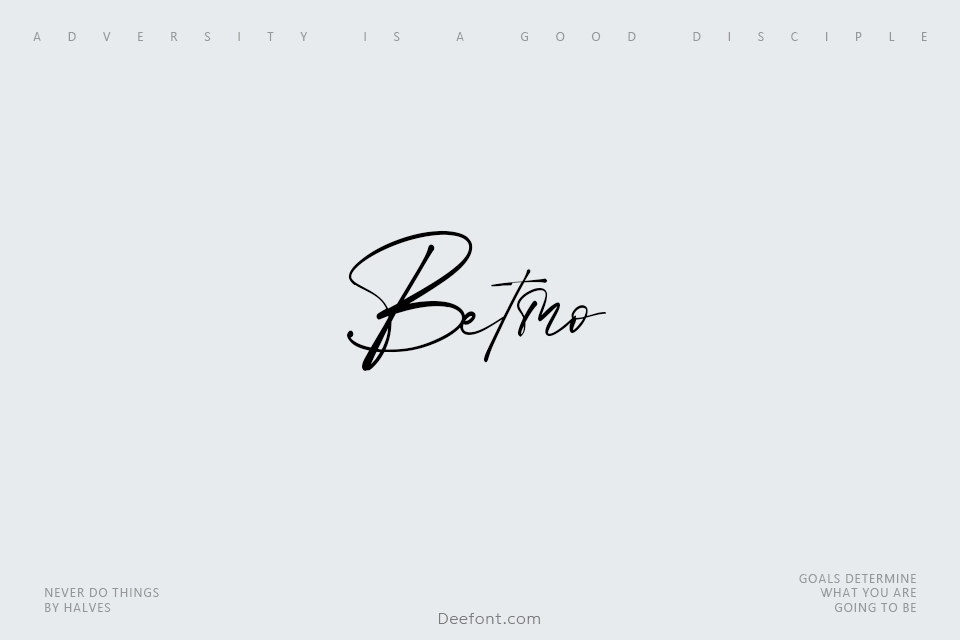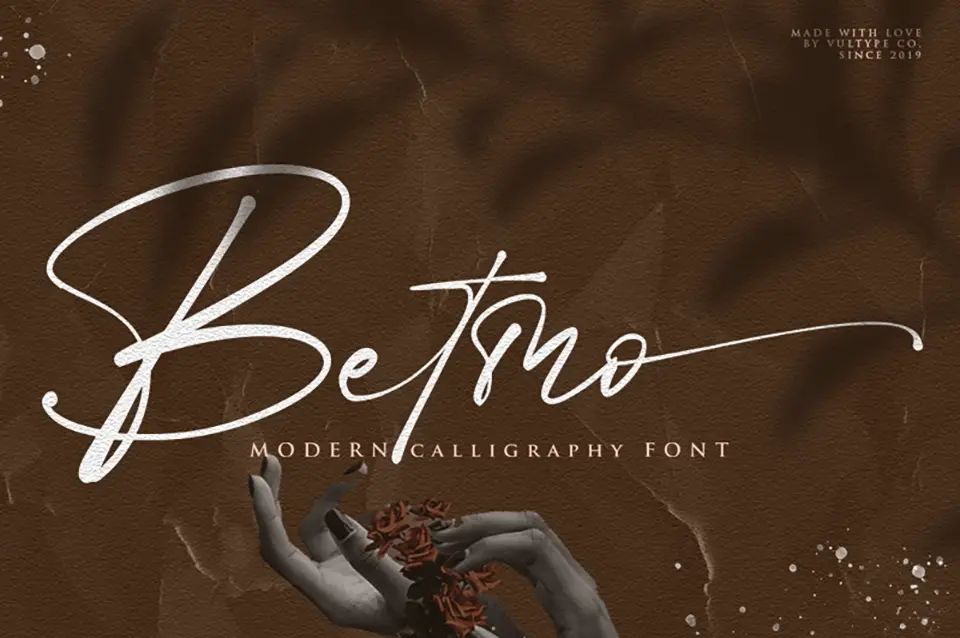
Betmo Font
Betmo is a glorious contemporary script font inspired by luxury fashion, featuring beautiful ligatures and alternates for sophisticated designs. Perfect for branding, magazine layouts, wedding invitations, logos, and product packaging, this elegant handwritten typeface elevates creative projects with its refined and flowing characteristics.